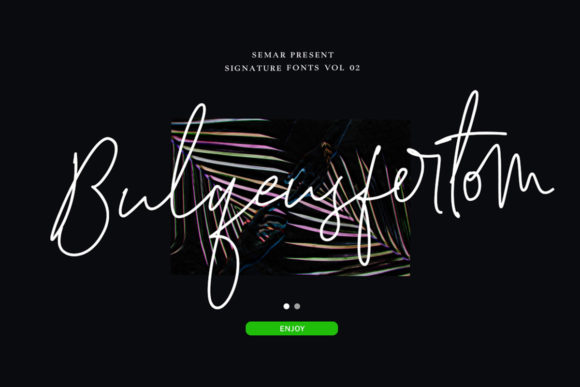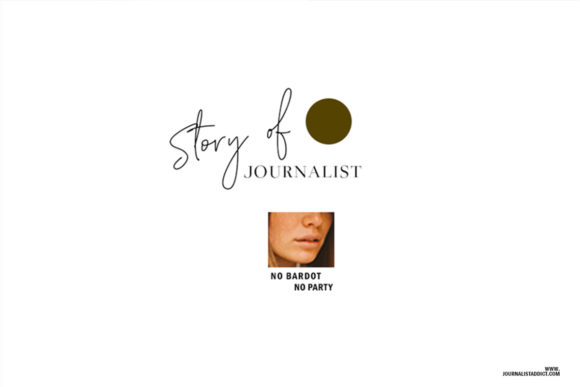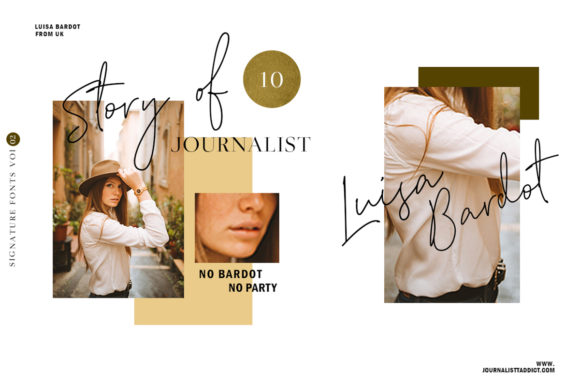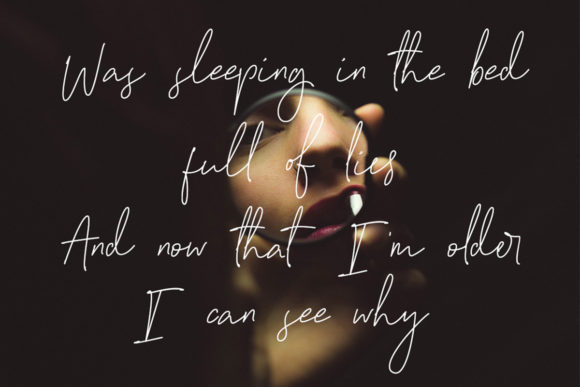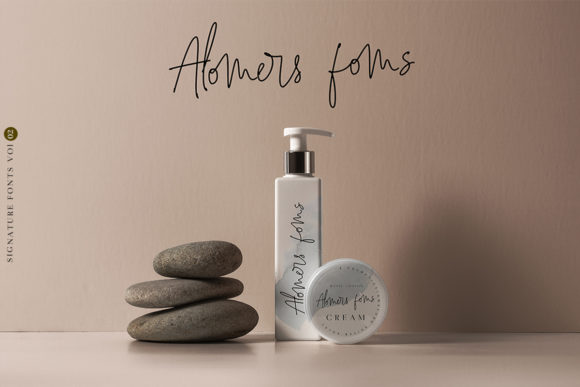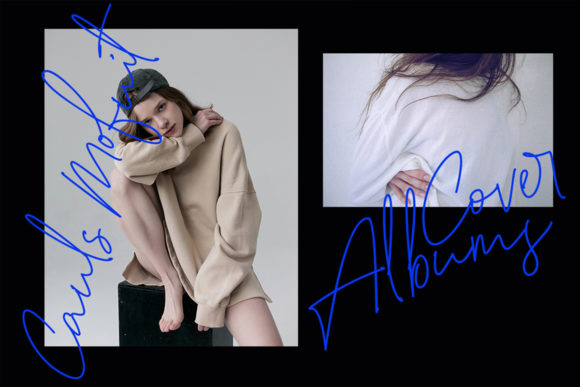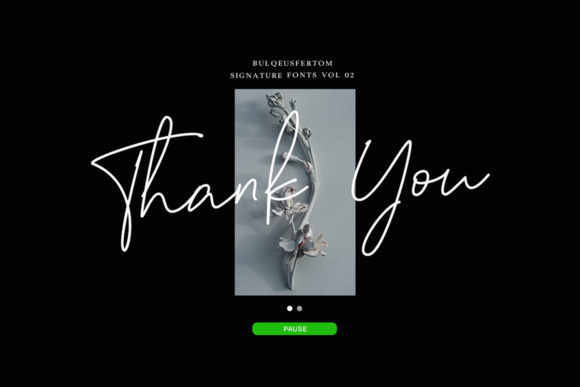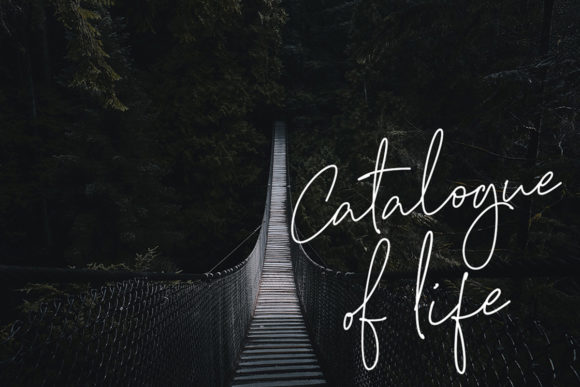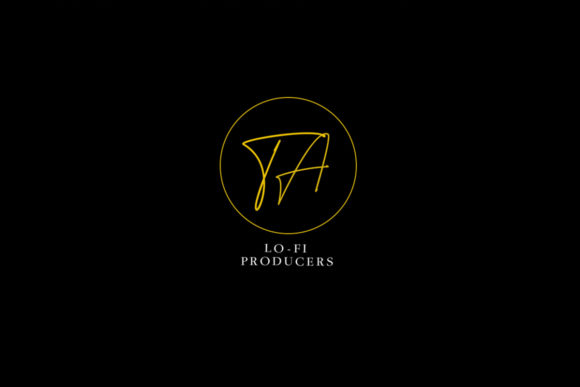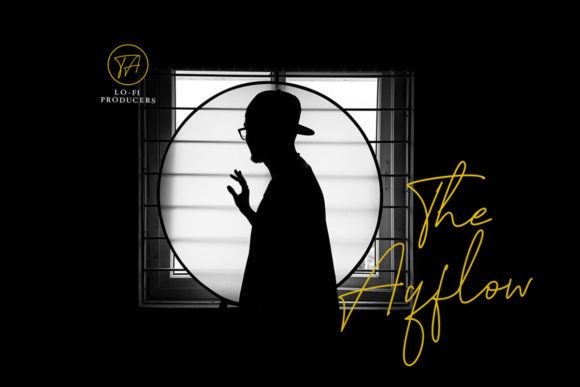
Bulqeusfertom Font
About Bulqeusfertom Font
Bulqeusfertom is an elegant signature fonts with confidence and courage. It is perfectly suited for a wide variety of projects!